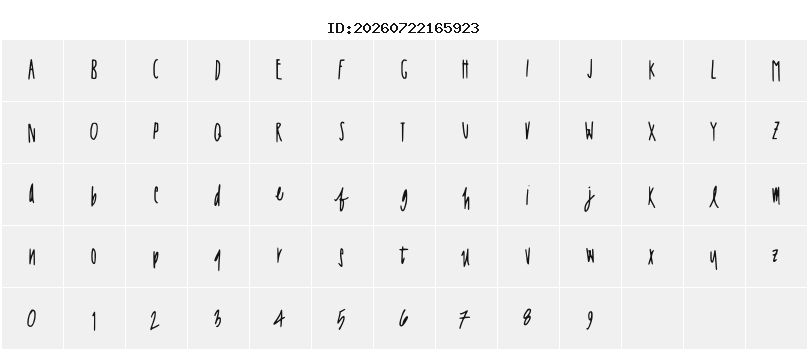
• Font Name: JessaPrint
About JessaPrint.ttf
JessaPrint.ttf is a modern, elegant sans-serif font designed for ultimate readability and visual harmony. Perfect for branding, headlines, web design, and print materials.